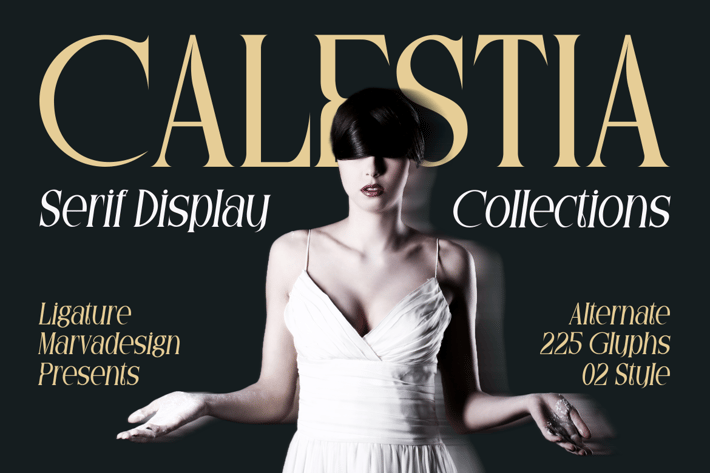
Calestia - A Display Condensed Serif Font
Introducing our new product Calestia Font - A Display Condensed Serif Font
Calestia Font - A Display Condensed Serif Font authentic display font. The font is suitable for any branding project like logo, Template Design, Product and many more. outstanding in a wide range of contexts.
Alternate
Italic
Calestia Font - A Display Condensed Serif Font authentic display font. The font is suitable for any branding project like logo, Template Design, Product and many more. outstanding in a wide range of contexts.
Alternate
Italic